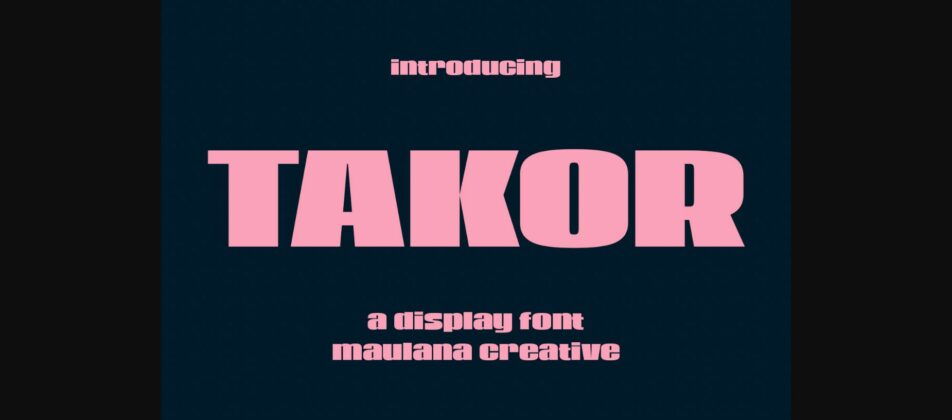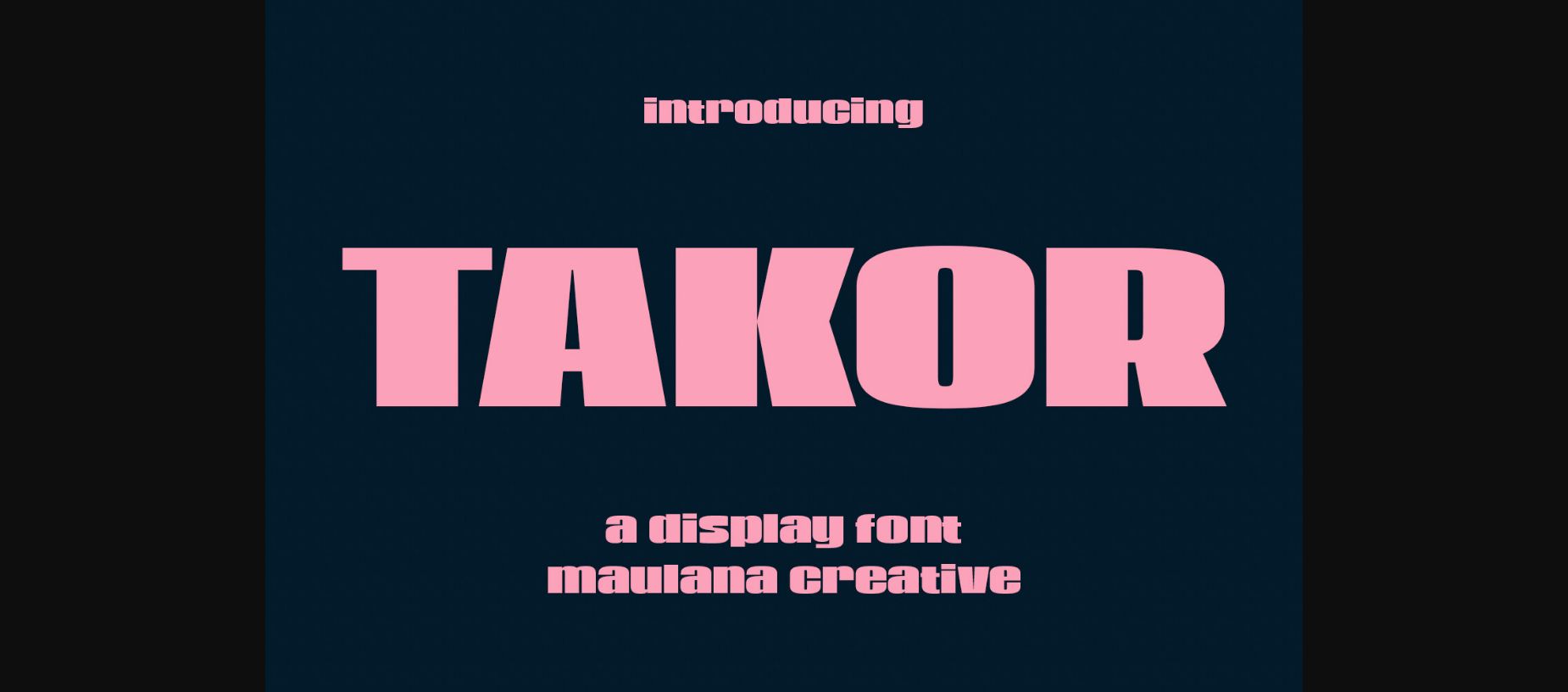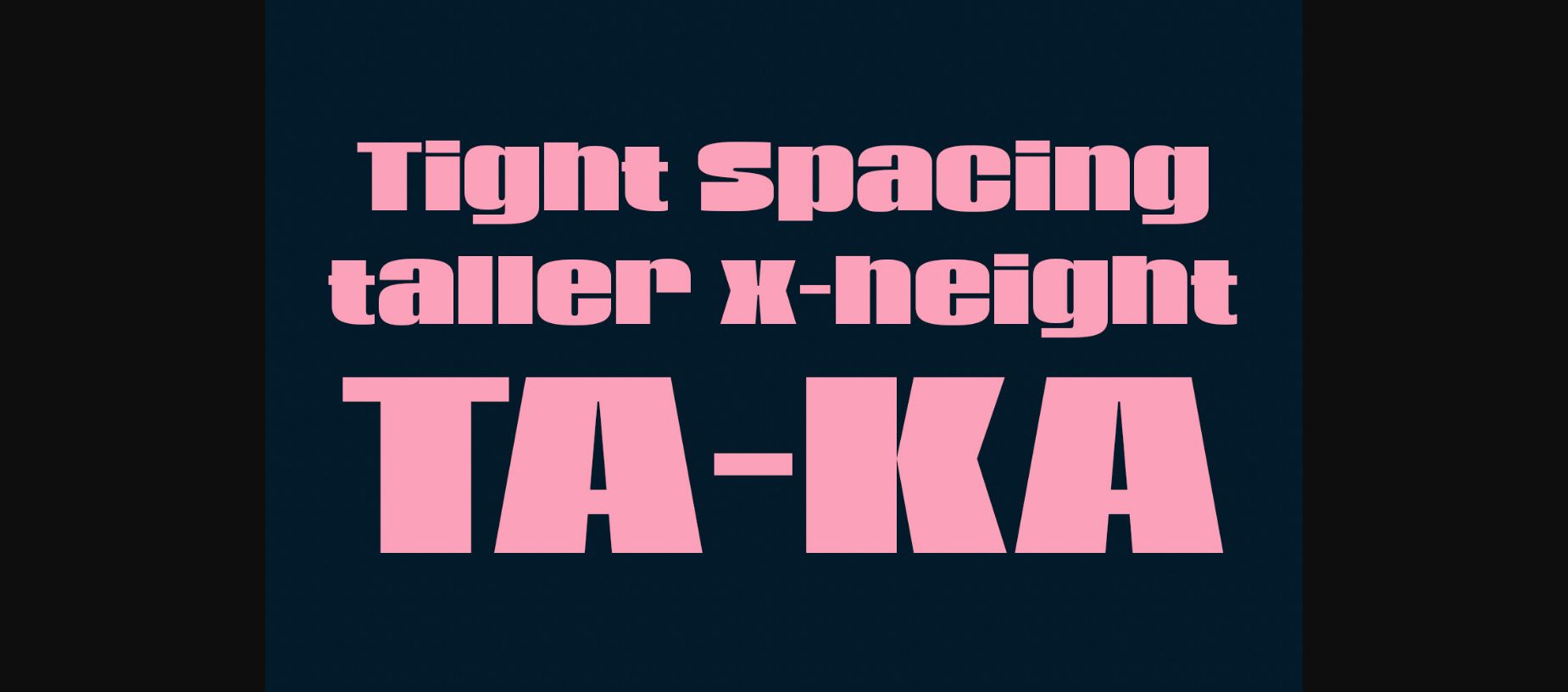
About Takor Font
Takor is a contrast-wide Sans display font with bold strokes, a fun characters. This font is good for logo design, Social media, Movie Titles, book titles, short text even a long text letters, and good for your secondary text font with script or serif. Make a stunning work with Takor font.